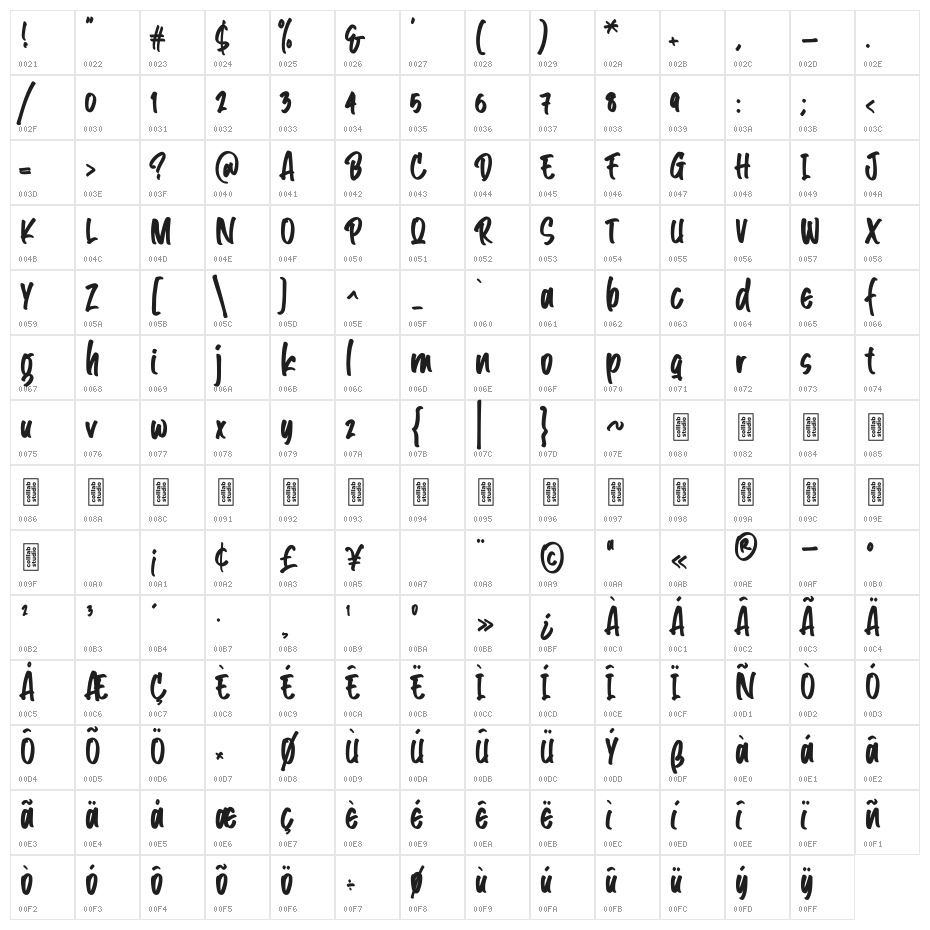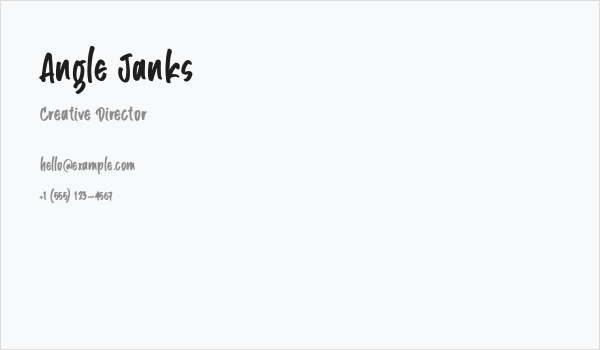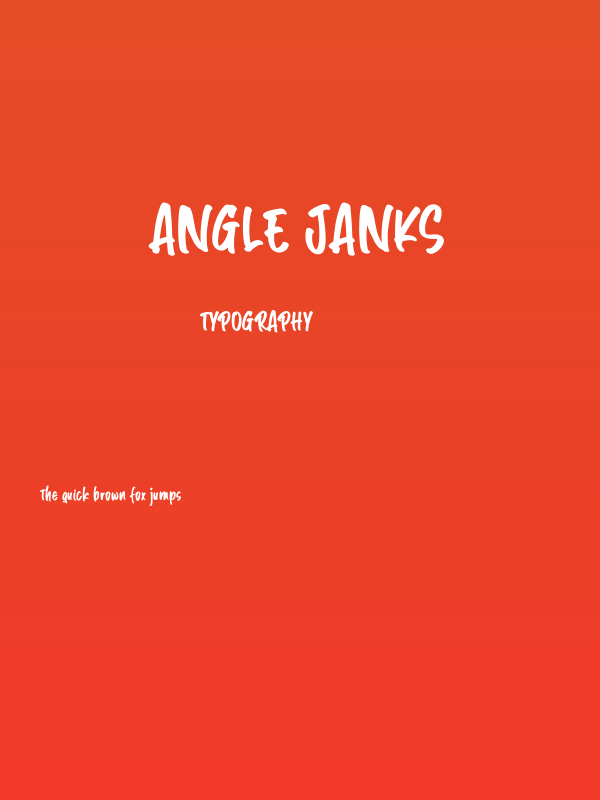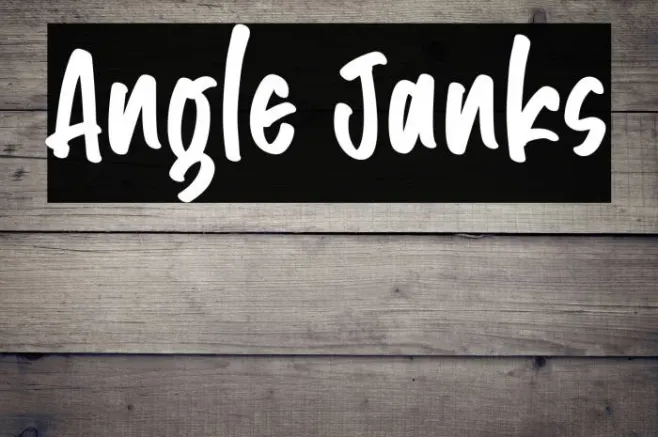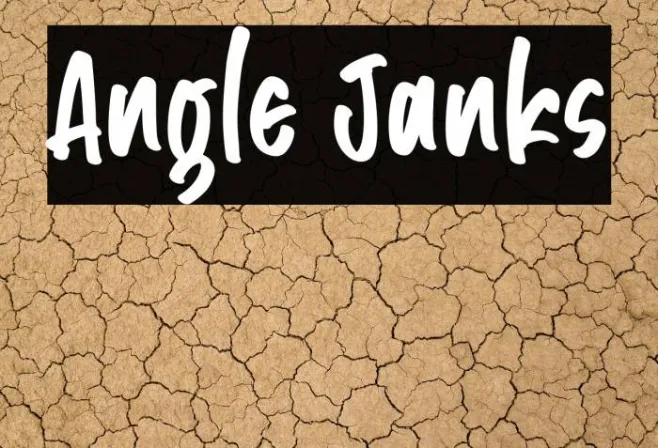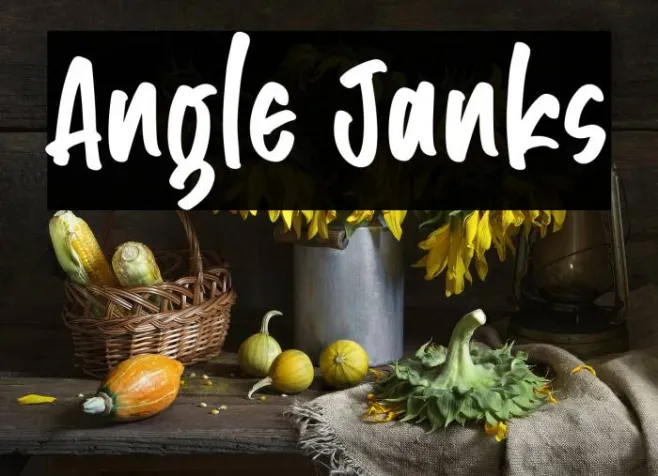
Angle Janks Font
Angle Janks Description
This font exhibits a bold and energetic handwritten style, characterized by its thick strokes and dynamic curves. The uppercase letters are robust and slightly slanted, giving a sense of movement and flair. The lowercase letters maintain a consistent style, with playful loops and a casual feel. Numbers are bold and easily readable, while special characters retain the same lively aesthetic. The overall appearance is informal and artistic, making it suitable for creative and expressive designs.
| Proposed Projects | Ideal for creative projects such as posters, invitations, branding, and social media graphics where a lively and informal touch is desired. |